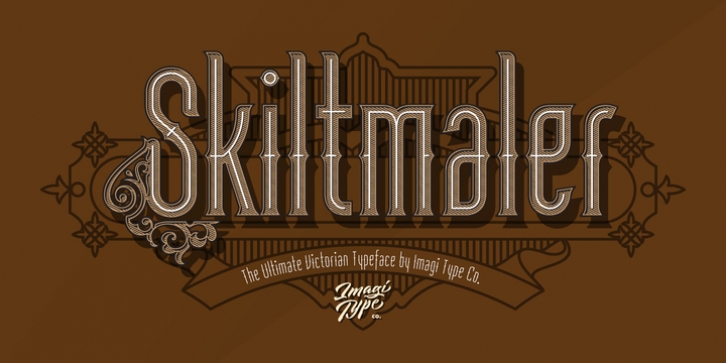
Publisher: Imagi Type
Skiltmaler is the typeface that refers to the style of decorative arts during the Victorian era 1837 to 1901, the Victorian era was the period in which fly poster typography emerged. The large amount of colour in combination with large font sizes were created from movable metal type. As well as being made from wood, this was used to create the two-coloured typefaces. You would imagine this would be specific to the ‘3D’ styled type seen on the poster to create the drop shadow.
Skiltmaler works well with normal size text, but it works even better for large displays, short words, or even just to incorporate a few or single characters in a design.